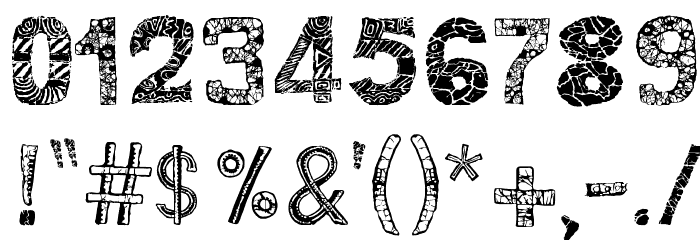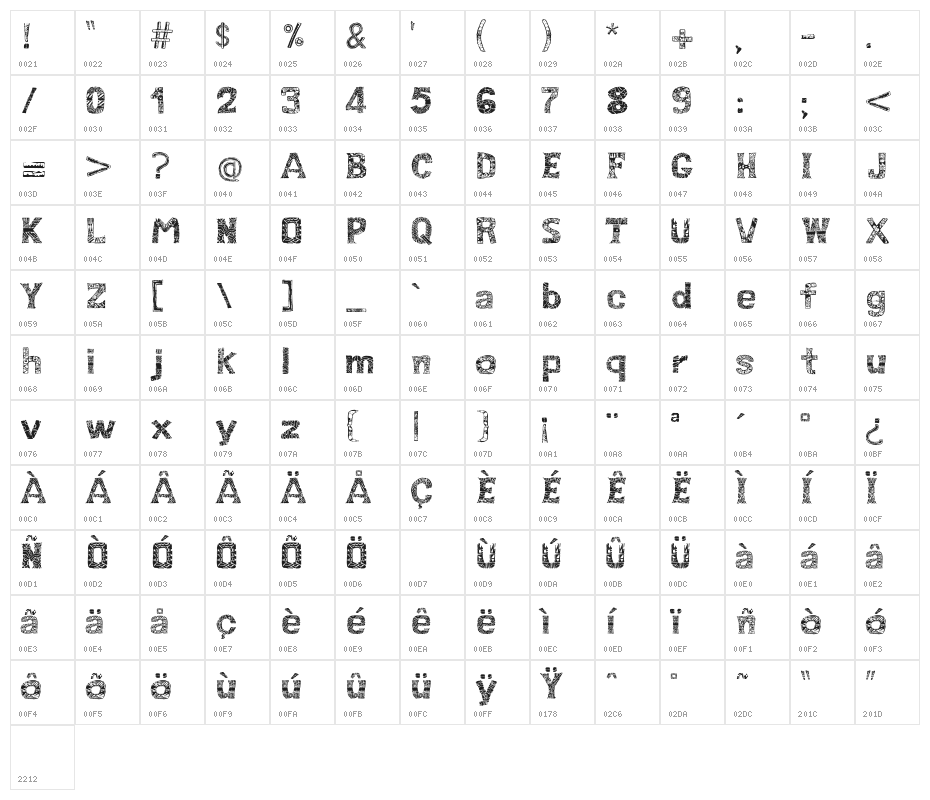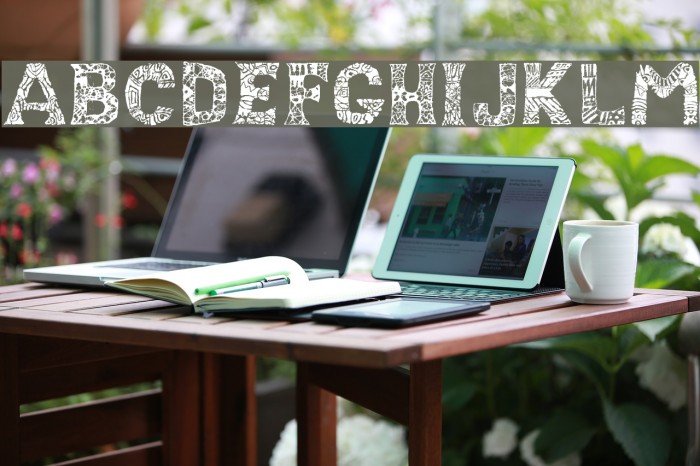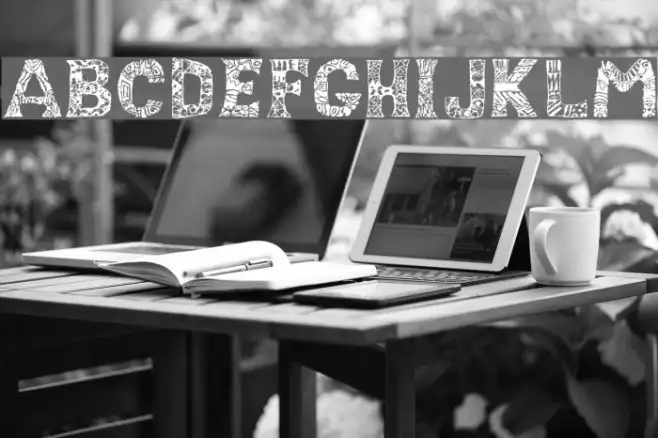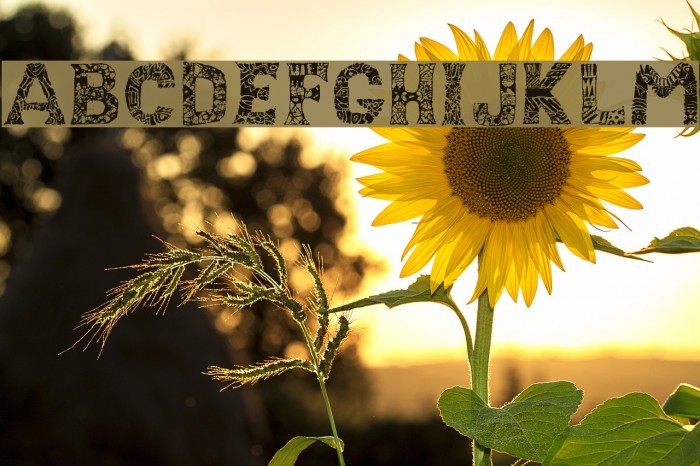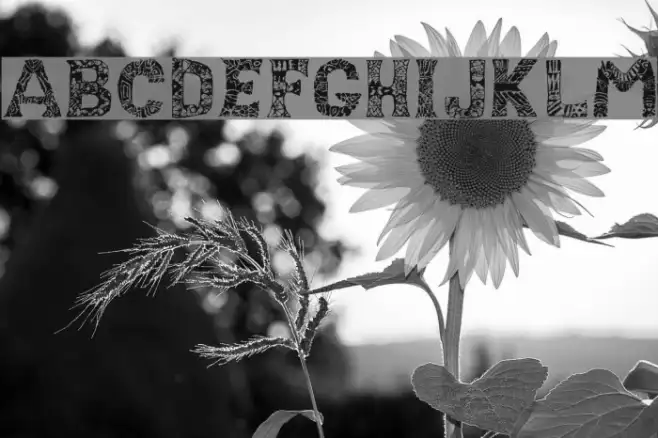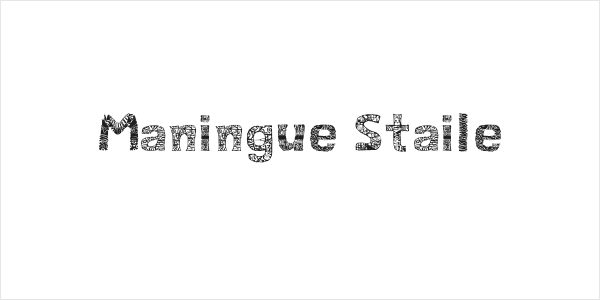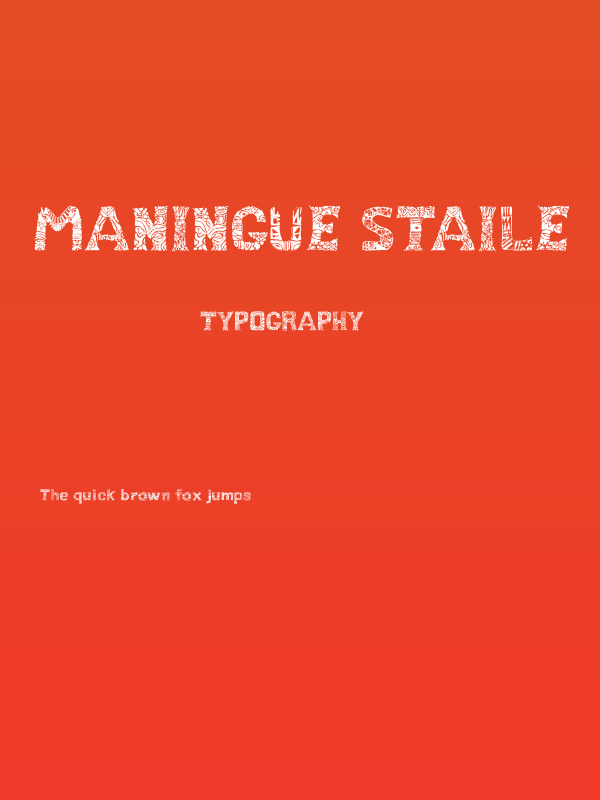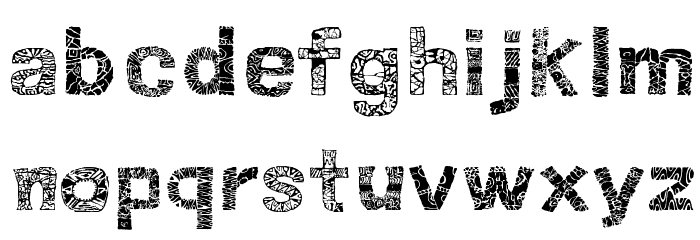
Maningue Staile Font
Maningue Staile Description
This font features a unique and artistic design with intricate patterns filling each character. The letters are bold and have a hand-drawn, textured appearance, making them stand out with a decorative flair. The uppercase and lowercase letters maintain a consistent style, with each character showcasing a different pattern, adding to the font's eclectic and creative vibe. The numbers and special characters follow the same design principles, ensuring a cohesive look throughout. This font is perfect for projects that require a touch of creativity and individuality.
| Proposed Projects | Ideal for artistic projects, posters, album covers, and any design work needing a creative and unique touch. |